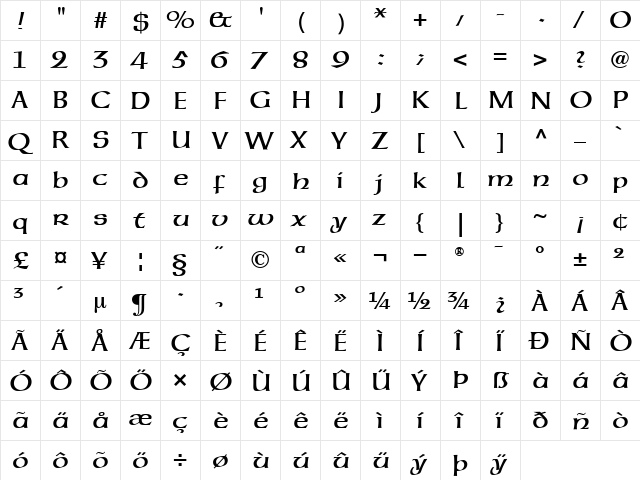
NeueHammerUnziale1 Roman Font Preview
NeueHammerUnziale1 Roman
Design Context for NeueHammerUnziale1 Typeface
NeueHammerUnziale1 is a composed and adaptable typeface that performs quietly and consistently across a wide range of design contexts.